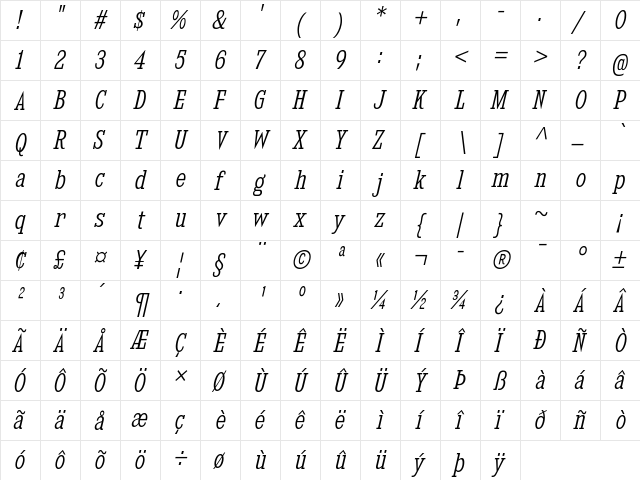
Kingsbridge Condensed Light Italic Font Preview
Design Context for Kingsbridge Typeface
Kingsbridge offers clean, dependable letterforms without strong stylistic allegiance, making it a practical choice for designers who need flexibility. Its italic angle brings a sense of urgency and motion to the letterforms. Its slender proportions lend an understated elegance to any composition. The condensed width makes it efficient for tight spaces without sacrificing legibility.
Pro Tip: Use Kingsbridge for emphasis, pull quotes, and subheadings where its slanted energy can add rhythm to the layout.